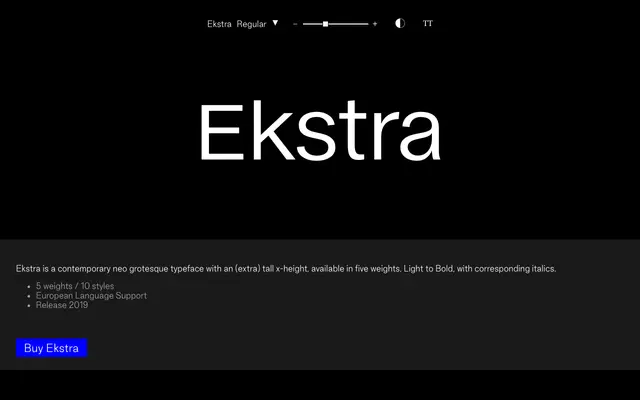
Ekstra
Good Type Foundry · 2019
A neo-grotesque with an unusually tall x-height, offered in five weights with matching italics and broad European language support.
Released in 2019, this neo-grotesque distinguishes itself chiefly through its extra tall x-height, which lends text a distinctive density and legibility at small sizes. Ten styles run across five weights from Light to Bold, each paired with an italic. European language support covers an extensive range of accented Latin characters.
Described explicitly as a neo grotesque, with a notably tall x-height and clean, rational letterforms typical of the neo-grotesque genre.